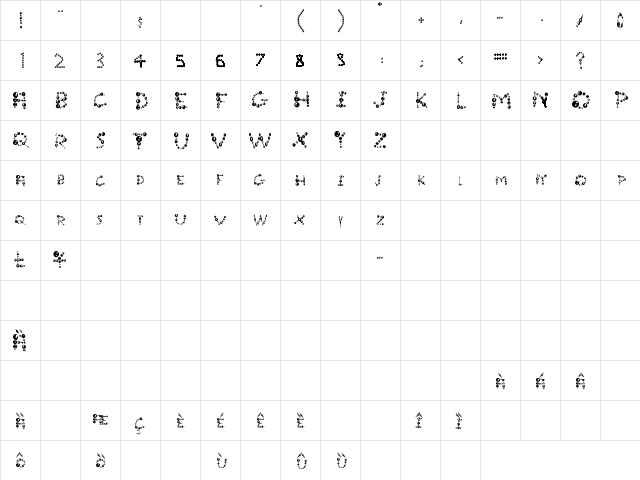
Ur Company's Bubbles Fantasy Regular
Design Context for Ur Company's Bubbles Fantasy Typeface
Ur Company's Bubbles Fantasy trades formality for fun, with bouncy, characterful letterforms that bring warmth and energy to any project.
Font Pairing: Pairs well with a rounded or humanist sans for body copy, maintaining the friendly tone without relying on Ur Company's Bubbles Fantasy to carry extended reading.
Pro Tip: Avoid using Ur Company's Bubbles Fantasy for long passages of text — it works best for headlines, labels, and short calls to action.